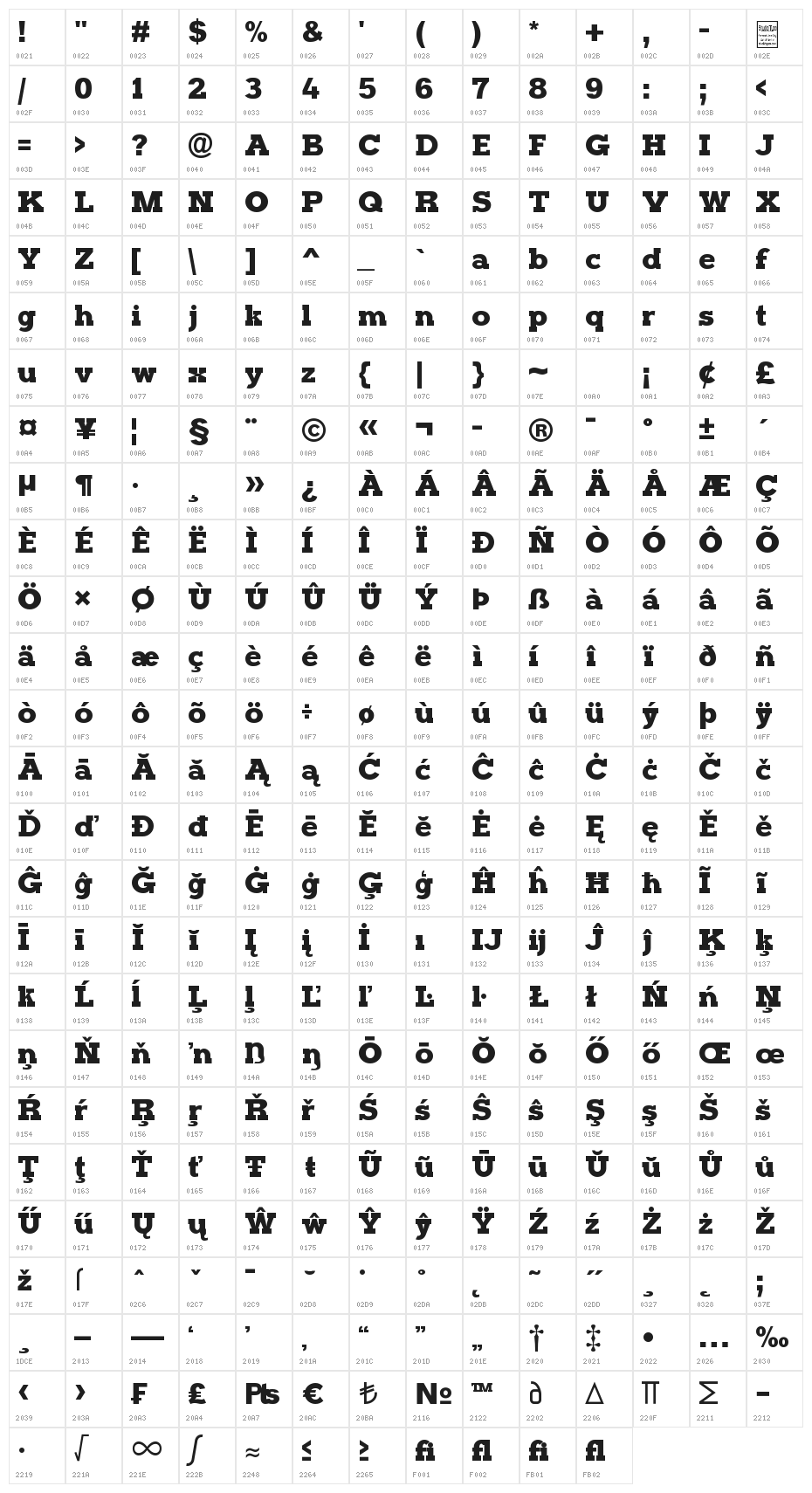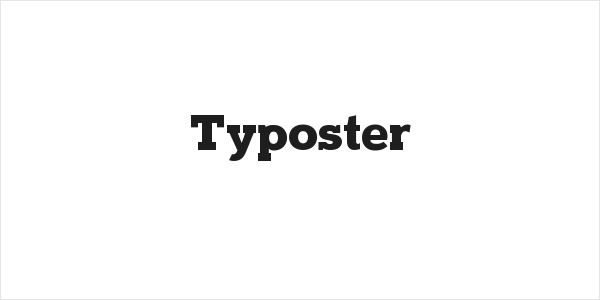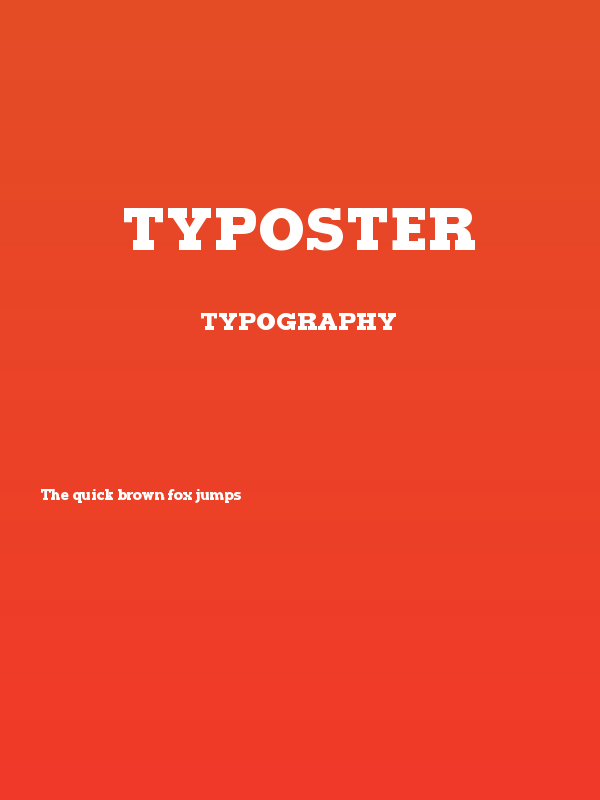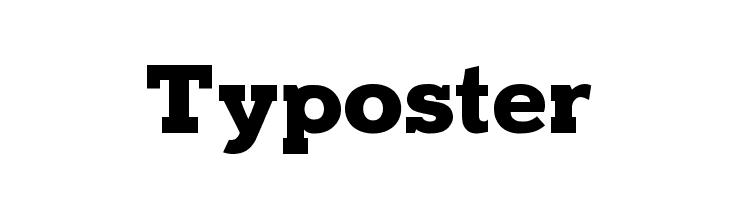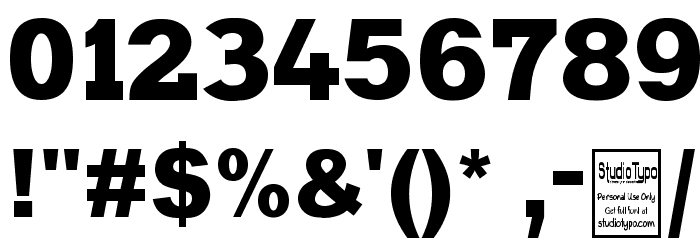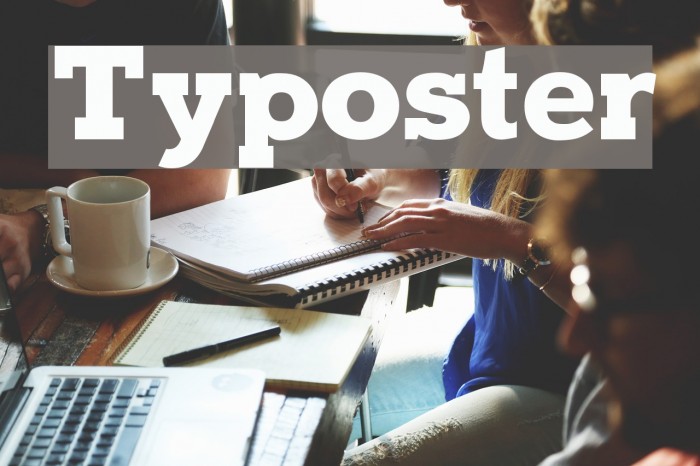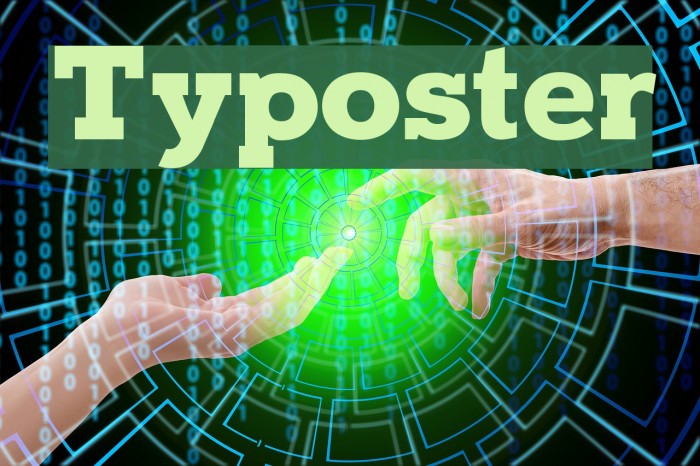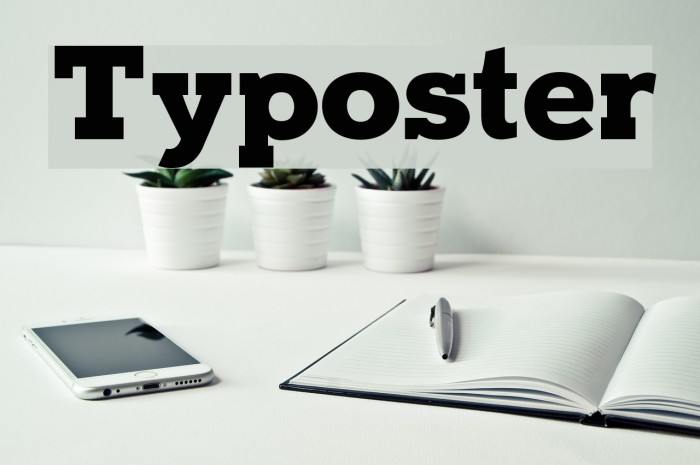
Typoster Font
Typoster Description
This bold and impactful font features strong, thick strokes that convey a sense of authority and presence. The uppercase letters are robust and commanding, while the lowercase letters maintain a consistent weight, ensuring readability and balance. The numerals are equally bold, making them stand out clearly. Special characters are designed with the same boldness, ensuring uniformity across all glyphs. The overall design is modern yet classic, making it versatile for various applications. Its slab serif style adds a touch of tradition, while the bold weight ensures it captures attention.